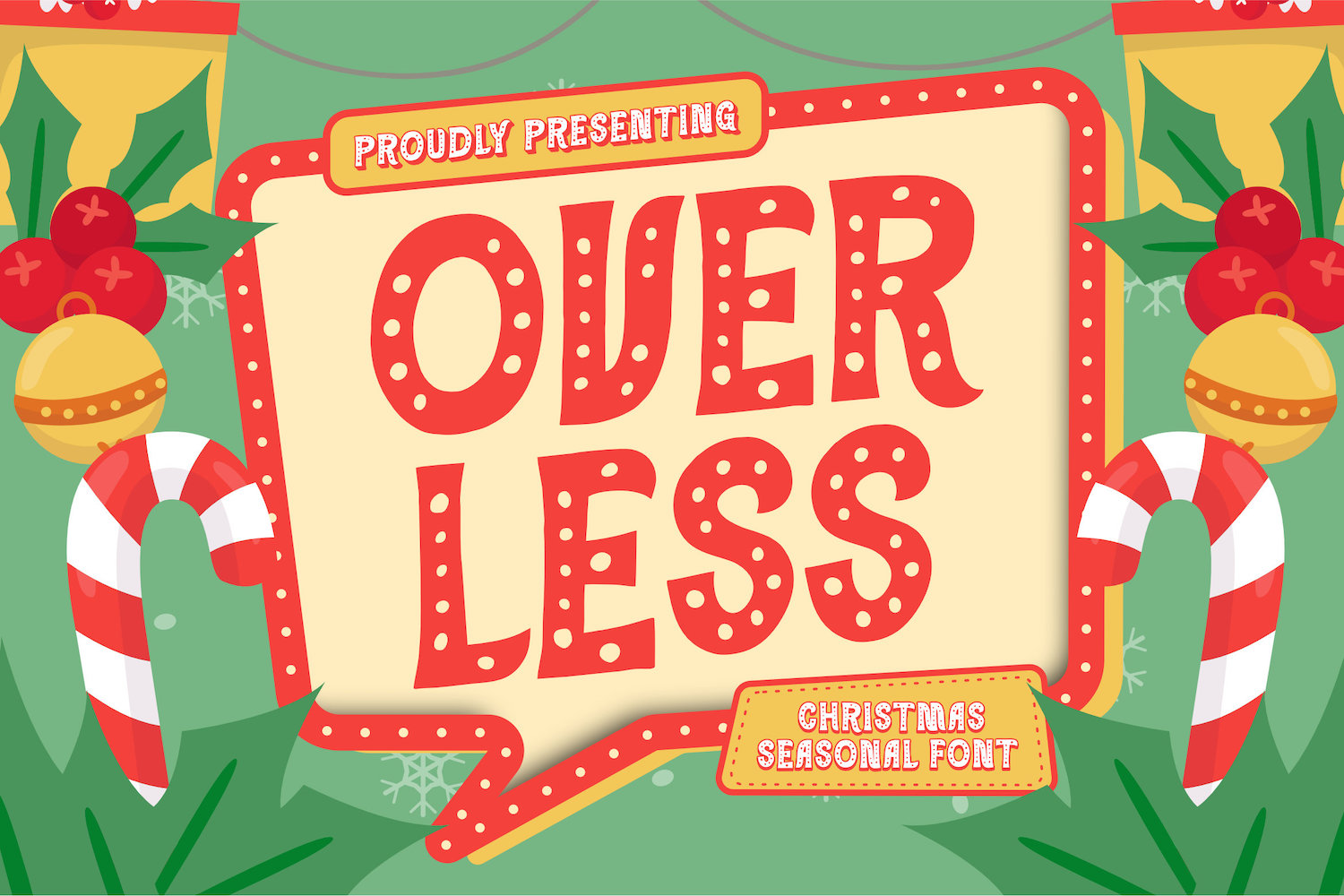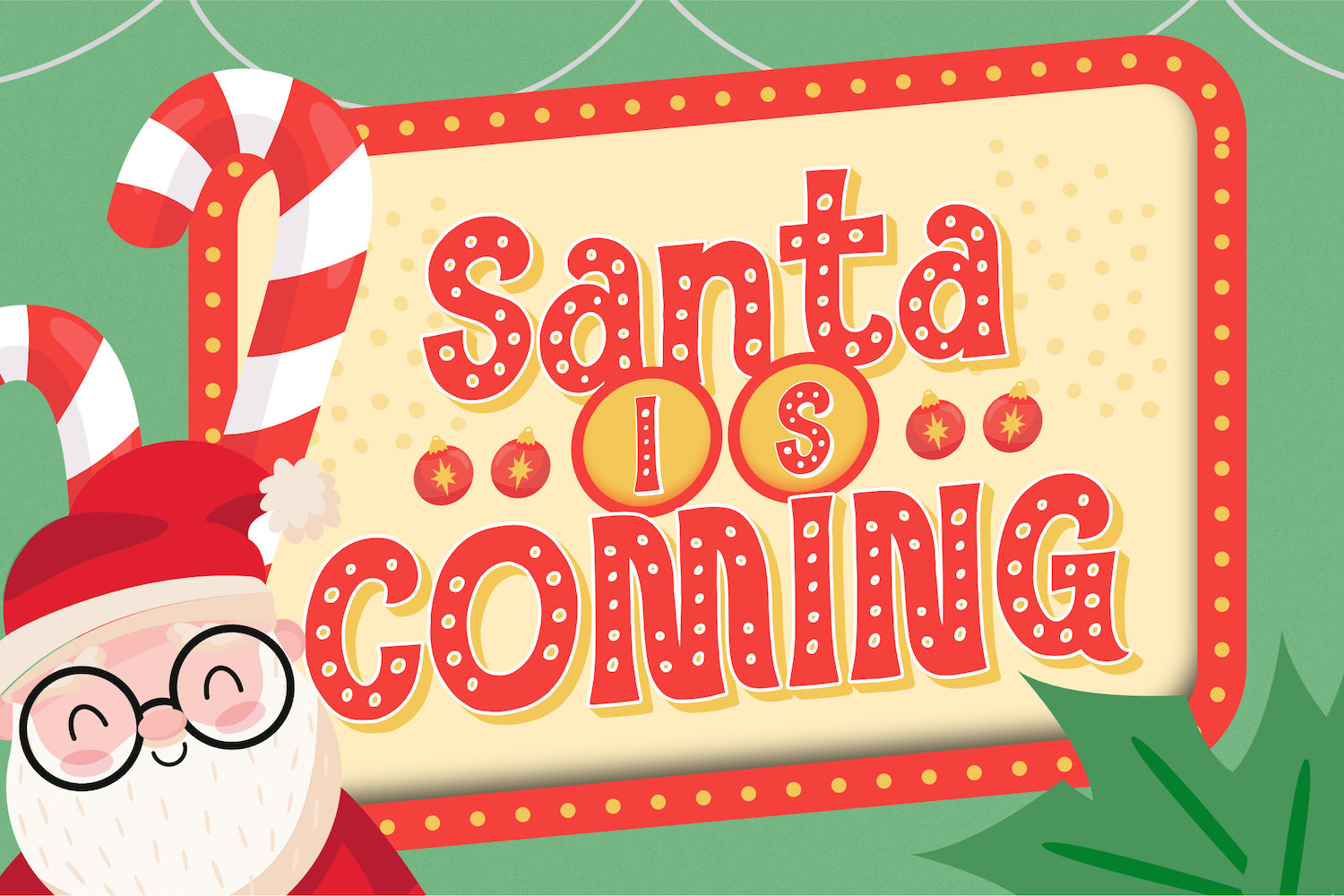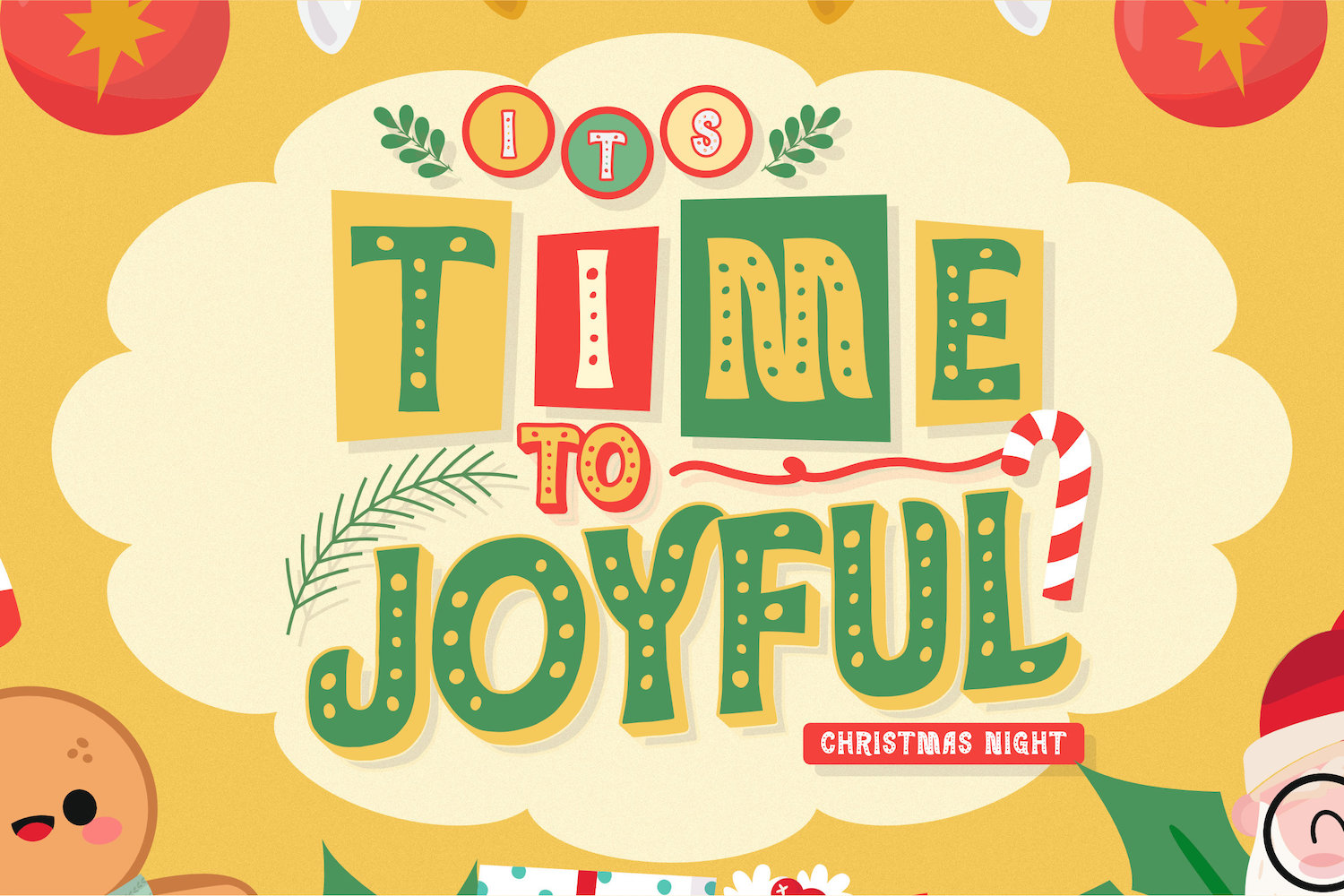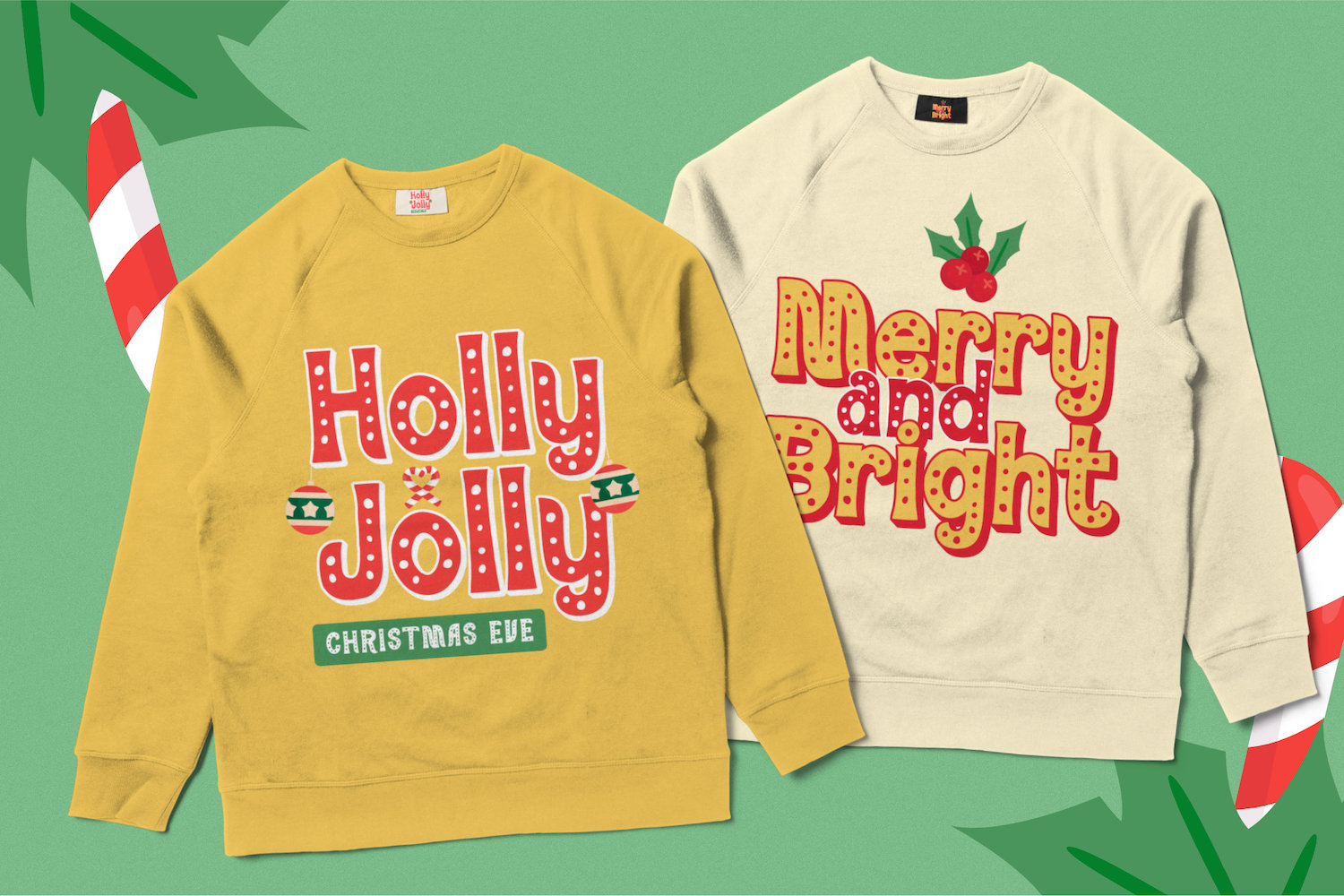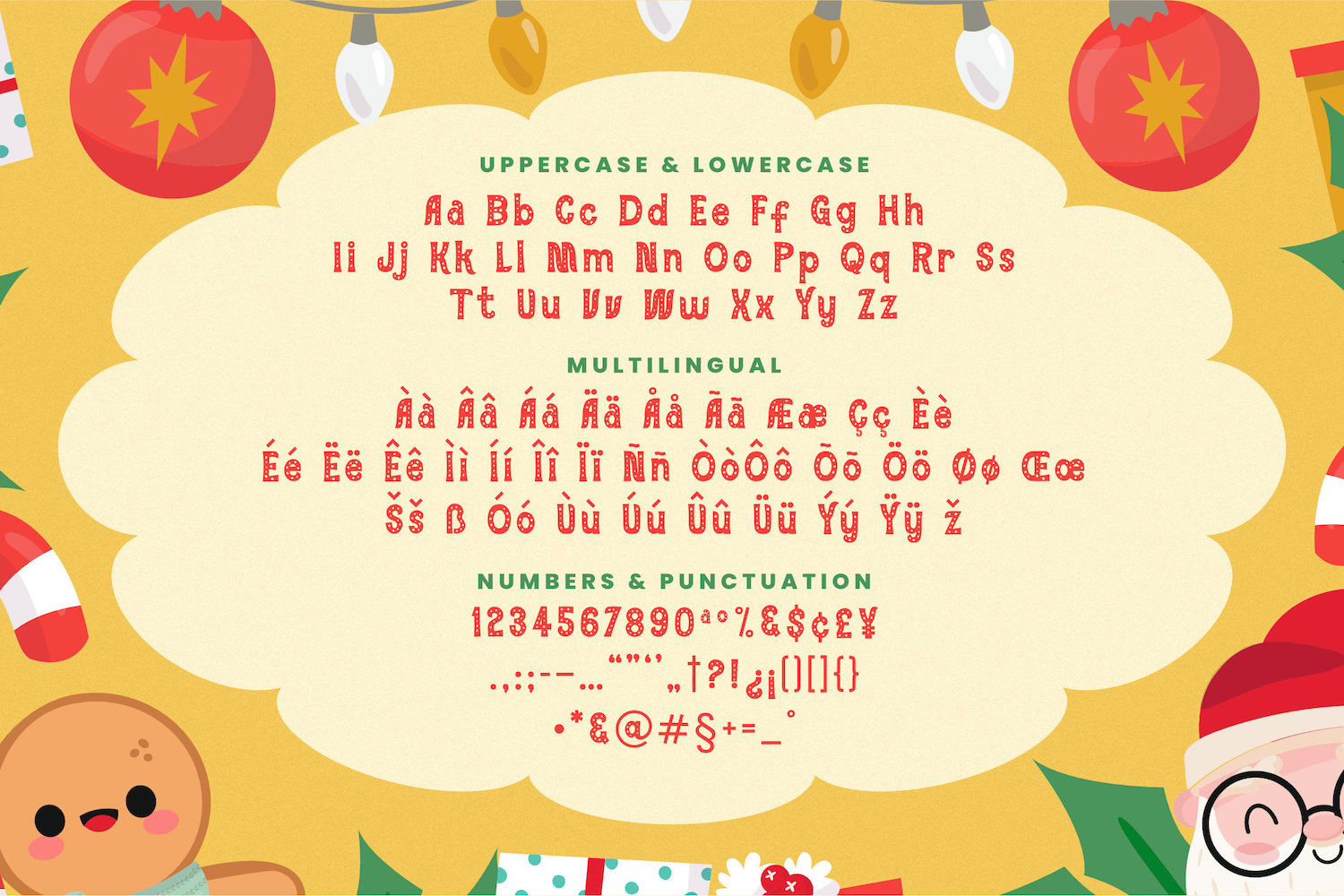
Overless is a cheerful and playful Christmas seasonal font that brings the festive spirit to life. With its bold letterforms, bouncy curves, and dotted marquee style, Overless is perfect for spreading holiday joy in any design. Whether you’re creating holiday cards, party invitations, or festive merchandise, this font adds a fun and eye-catching charm that captures the essence of celebration.
This font includes uppercase and lowercase letters, multilingual support, numbers, and punctuation. Making it a versatile tool for any creative project. Ideal for children’s themes, gift tags, Christmas apparel, posters, or joyful social media posts, Overless brings out the jolly vibes of the holiday season in the most delightful way.